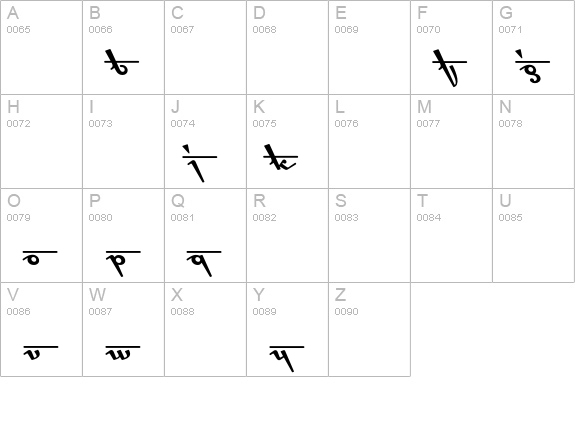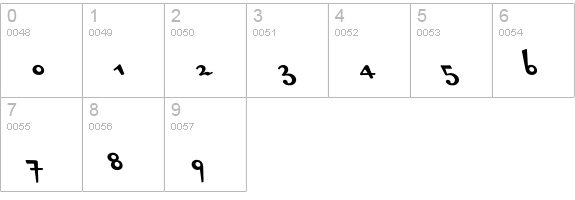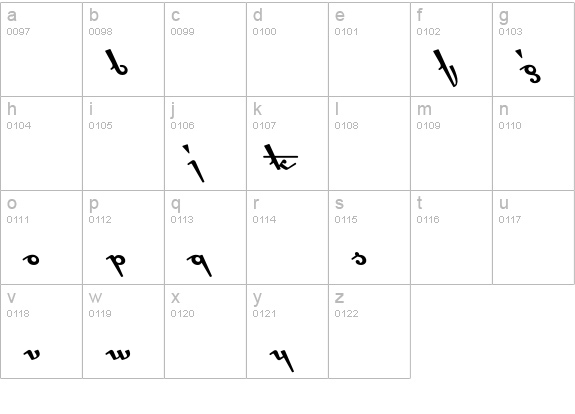
CottingleyIncoming Font Details
CottingleyIncoming font is a beautifully designed typeface that exudes elegance and sophistication. With its sleek lines and modern aesthetic, this font is perfect for adding a touch of class to any project. The graceful curves and sharp angles of CottingleyIncoming create a visually striking appearance that is sure to capture attention. What sets CottingleyIncoming apart is that it is not only stylish and versatile, but also completely free for personal and commercial use. This means that you can use this stunning font in a wide range of projects without any restrictions or limitations. For those looking to elevate their designs with a touch of sophistication, CottingleyIncoming is the perfect choice. It is available for free download at FontsMarket.com, making it easily accessible to anyone looking to enhance their creative projects with a touch of elegance.